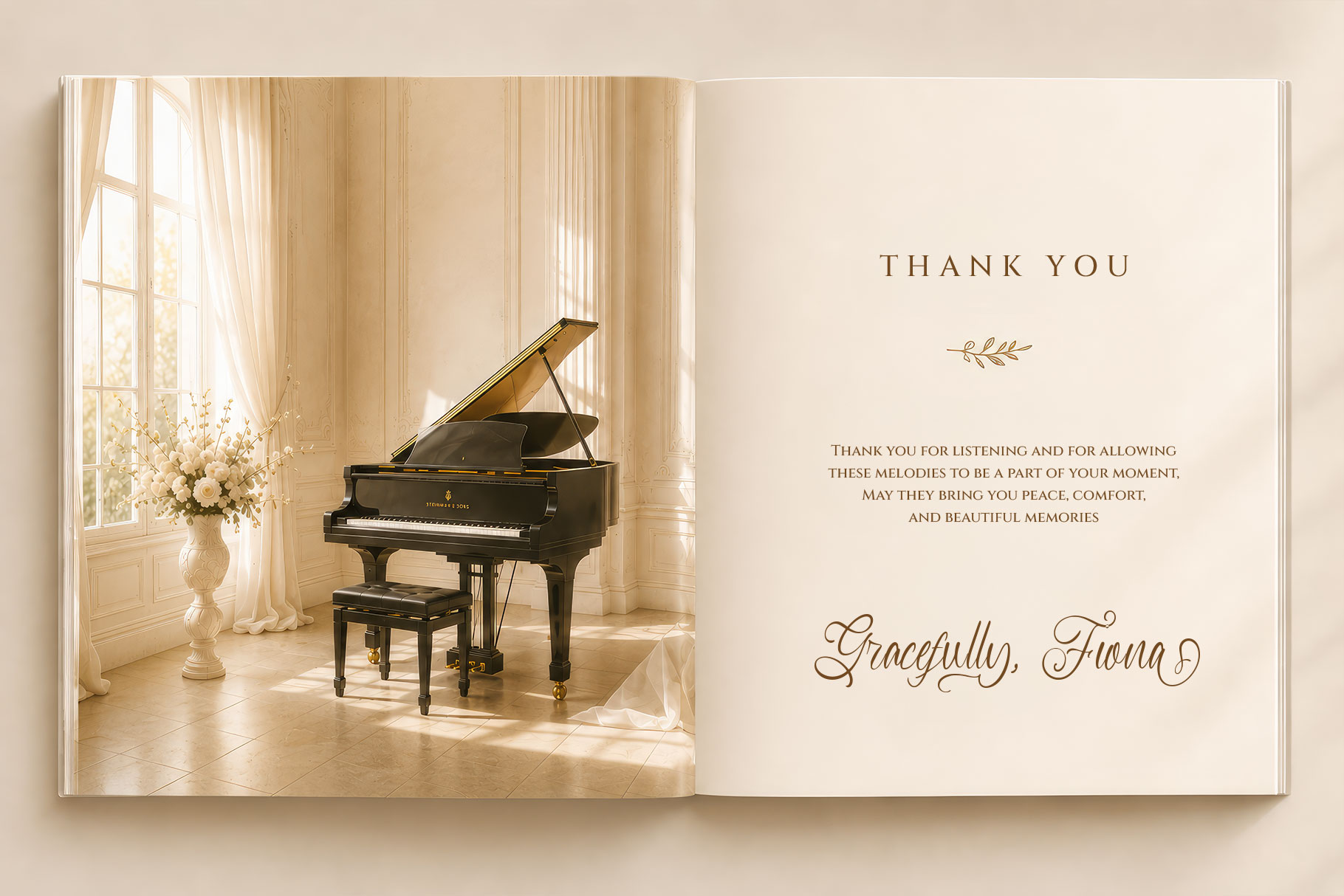
Adelorina
Adelorina is elegant scipt font with luxury ornamental script with dramatic flourishes, high contrast stroke rhythm, and couture level elegance. Adelorina is a perfectly choice for any creative endeavor, creating, modern, lifestyle design such as logotype, title, cover, branding, invitations, wedding designs, display and magazine, social media posts, advertisements, printed quotes, product packaging, corporate brand, product designs, labels, photography, watermarks, special events and any other project with elegant touch.